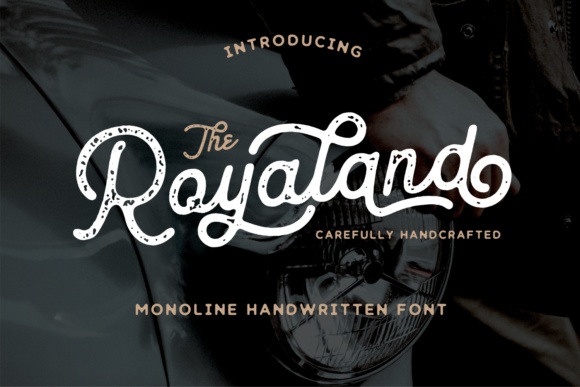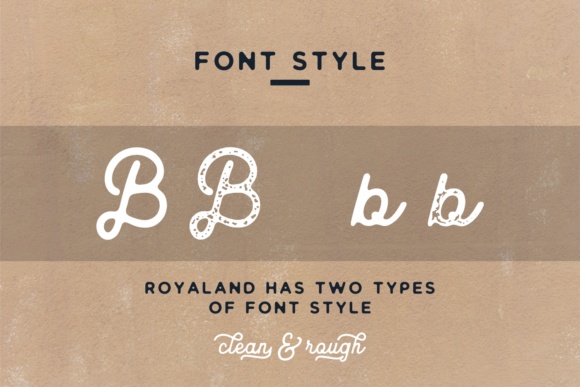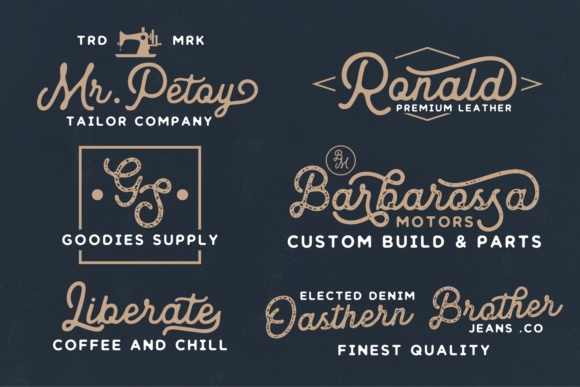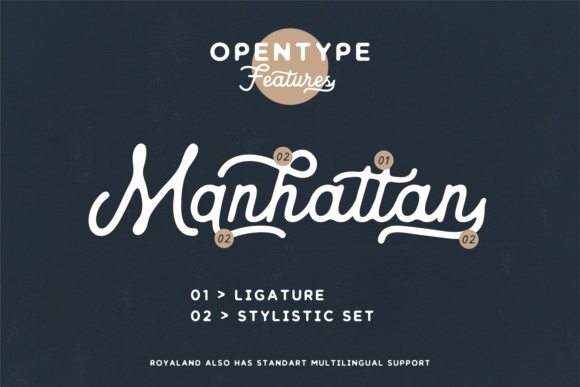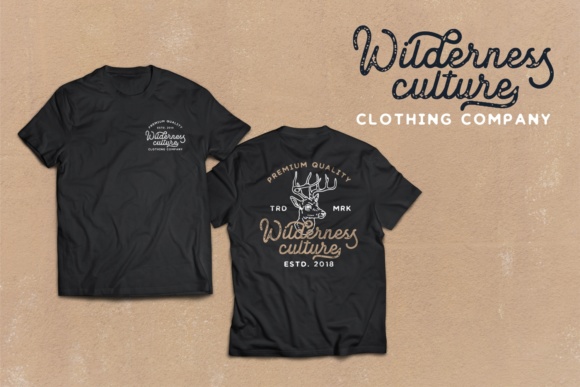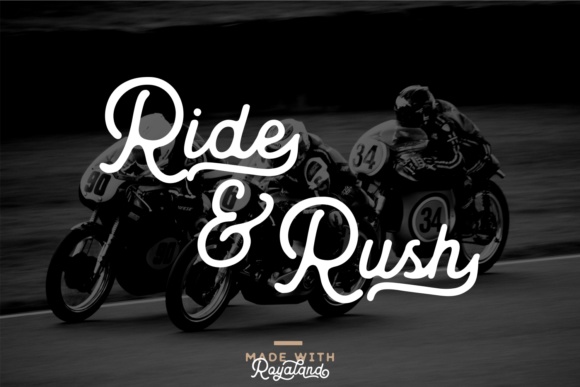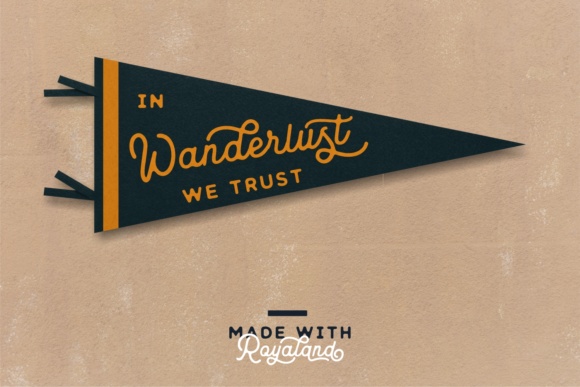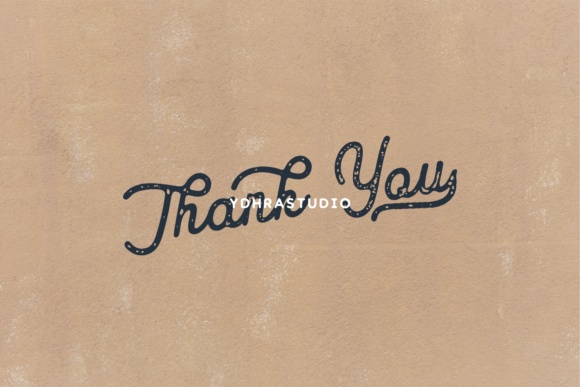
Royaland Font
About Royaland Font
Royaland is a beautiful, vintage inspired font set that will add a ton of charm and charisma to your projects. This font has a throwback, motorcycle vibe and works well in projects that need that rough edge.